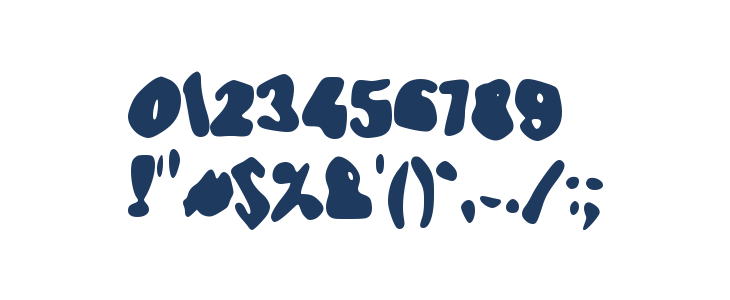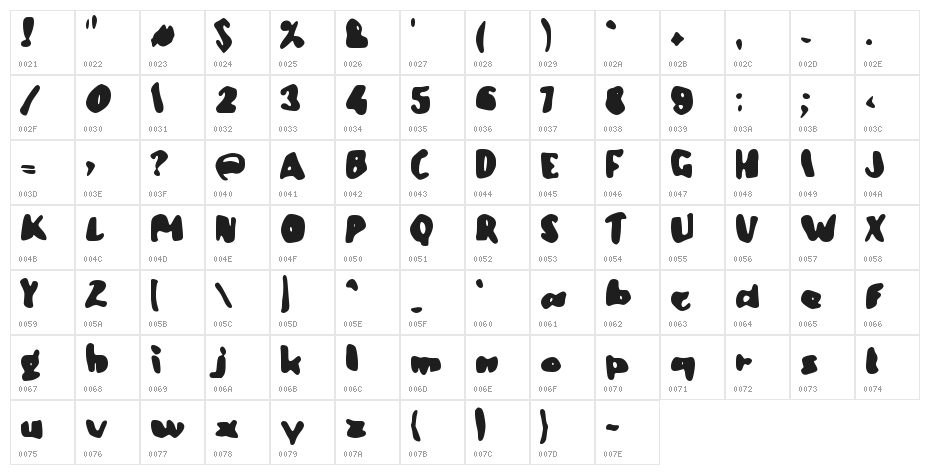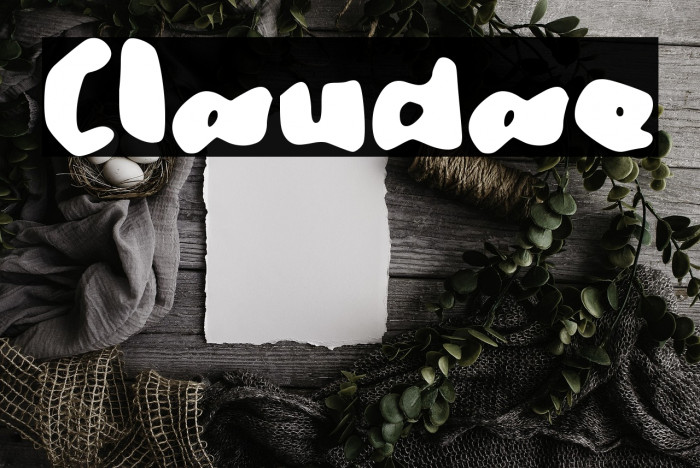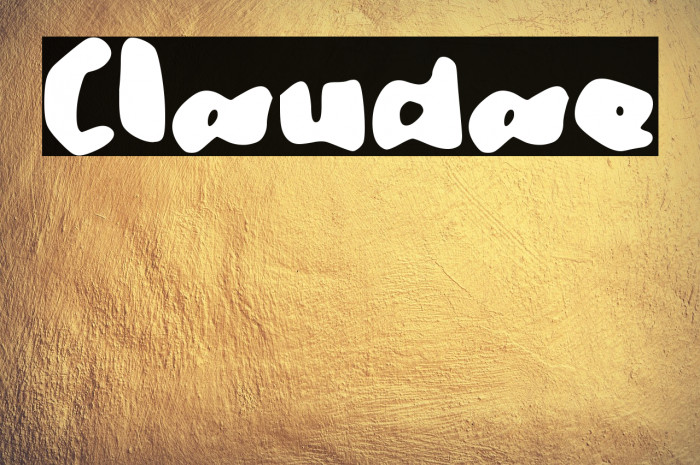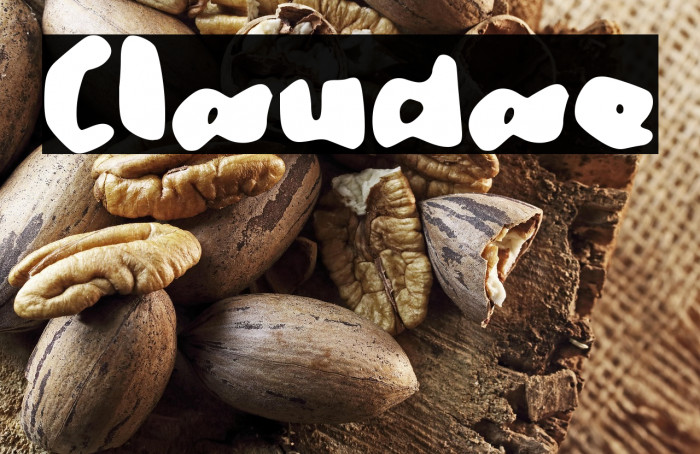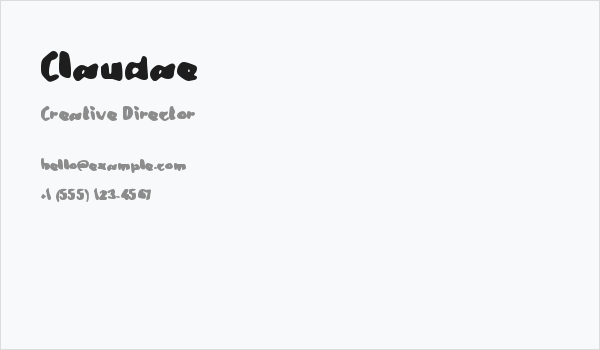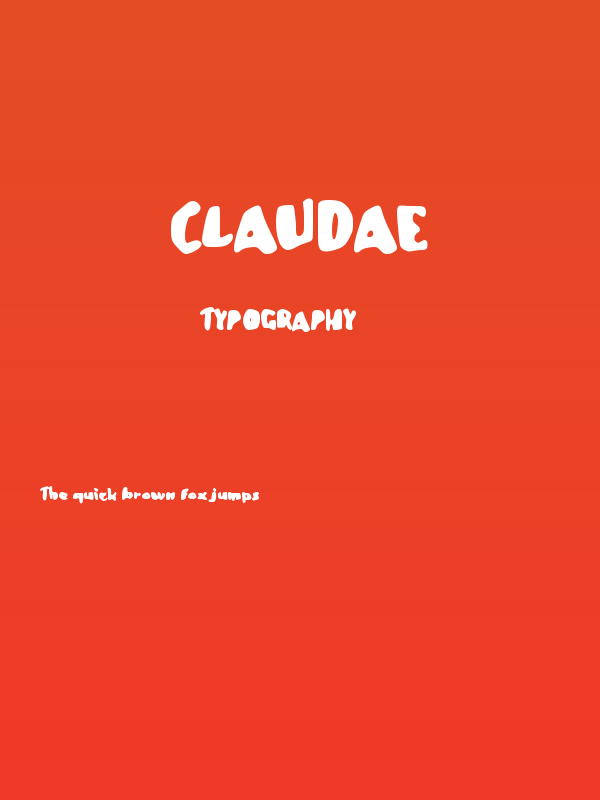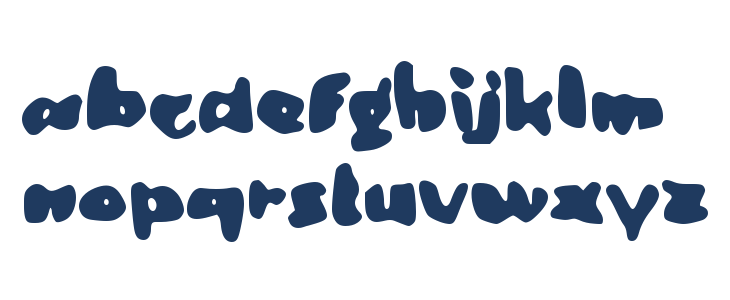
Claudae Font
Claudae Description
This font features a playful and bold design with rounded, irregular shapes that give it a whimsical and informal appearance. The characters are thick and heavy, with a consistent stroke width that adds to its boldness. The overall style is reminiscent of hand-drawn or doodle-like lettering, making it ideal for creative and fun projects. The uppercase and lowercase letters maintain a consistent style, with the lowercase letters being slightly smaller but equally bold. Numbers and special characters follow the same playful design, ensuring uniformity across all elements.
| Overall Style | Playful, Whimsical, Hand-drawn |
| Proposed Projects | Ideal for children's books, playful branding, party invitations, and creative posters. |